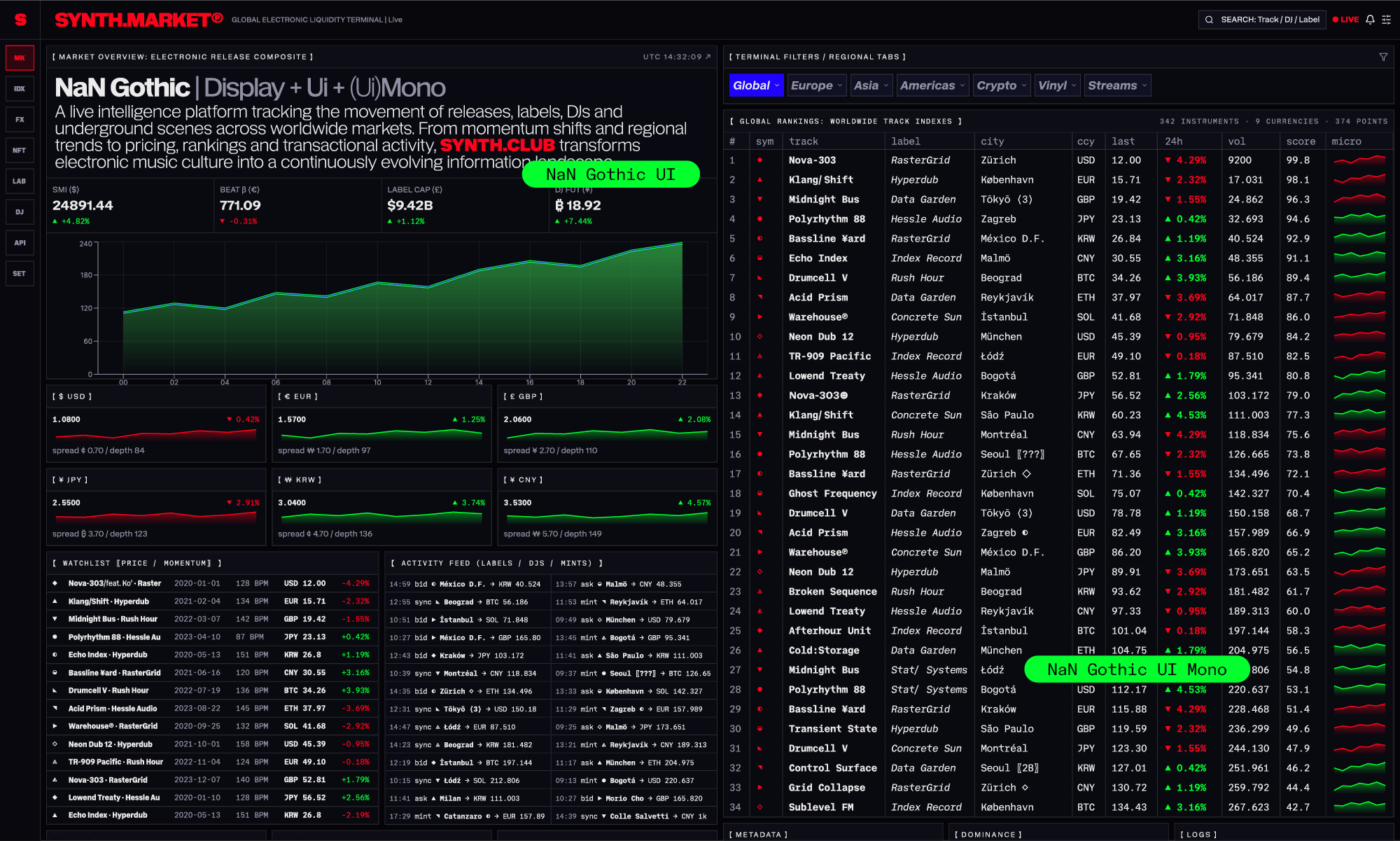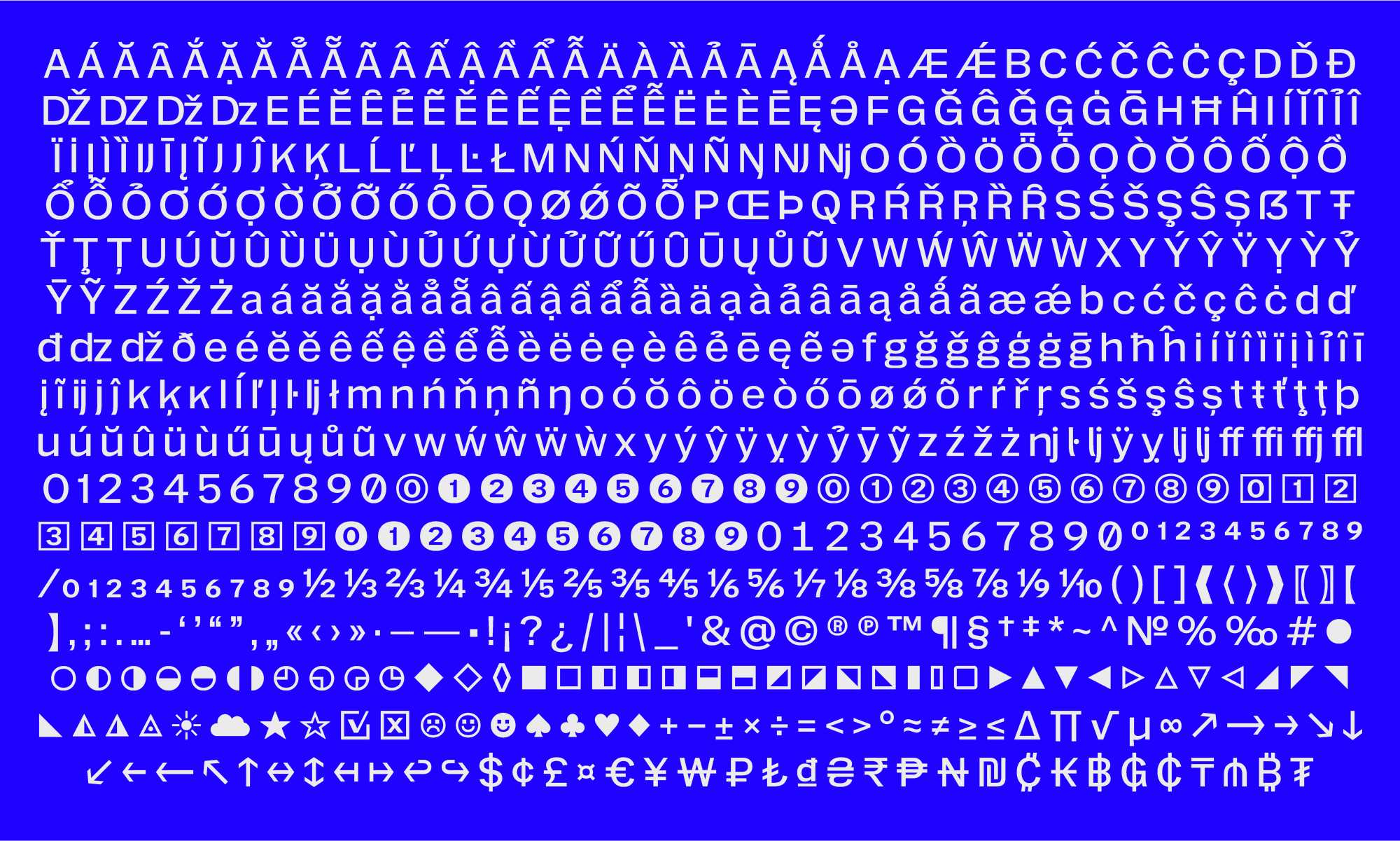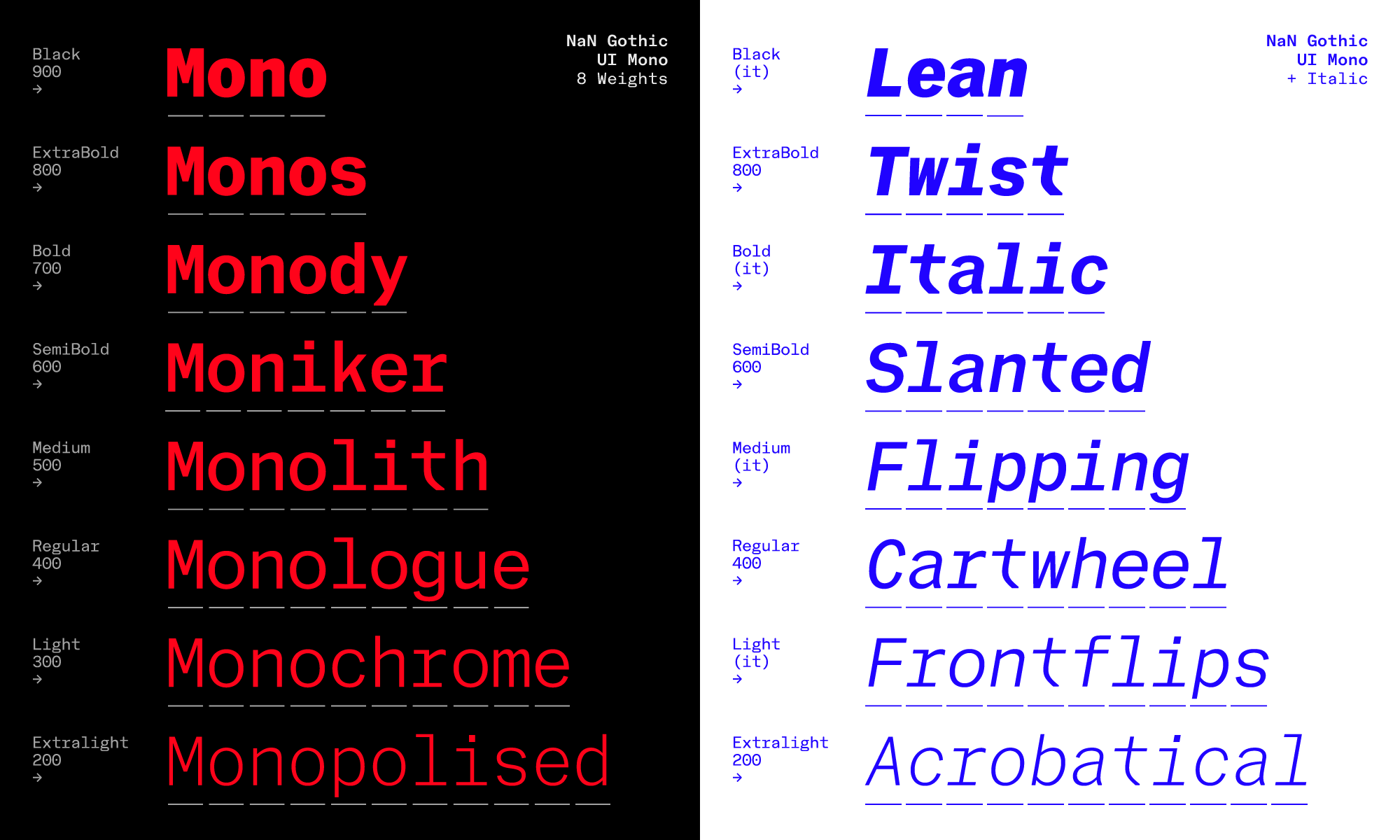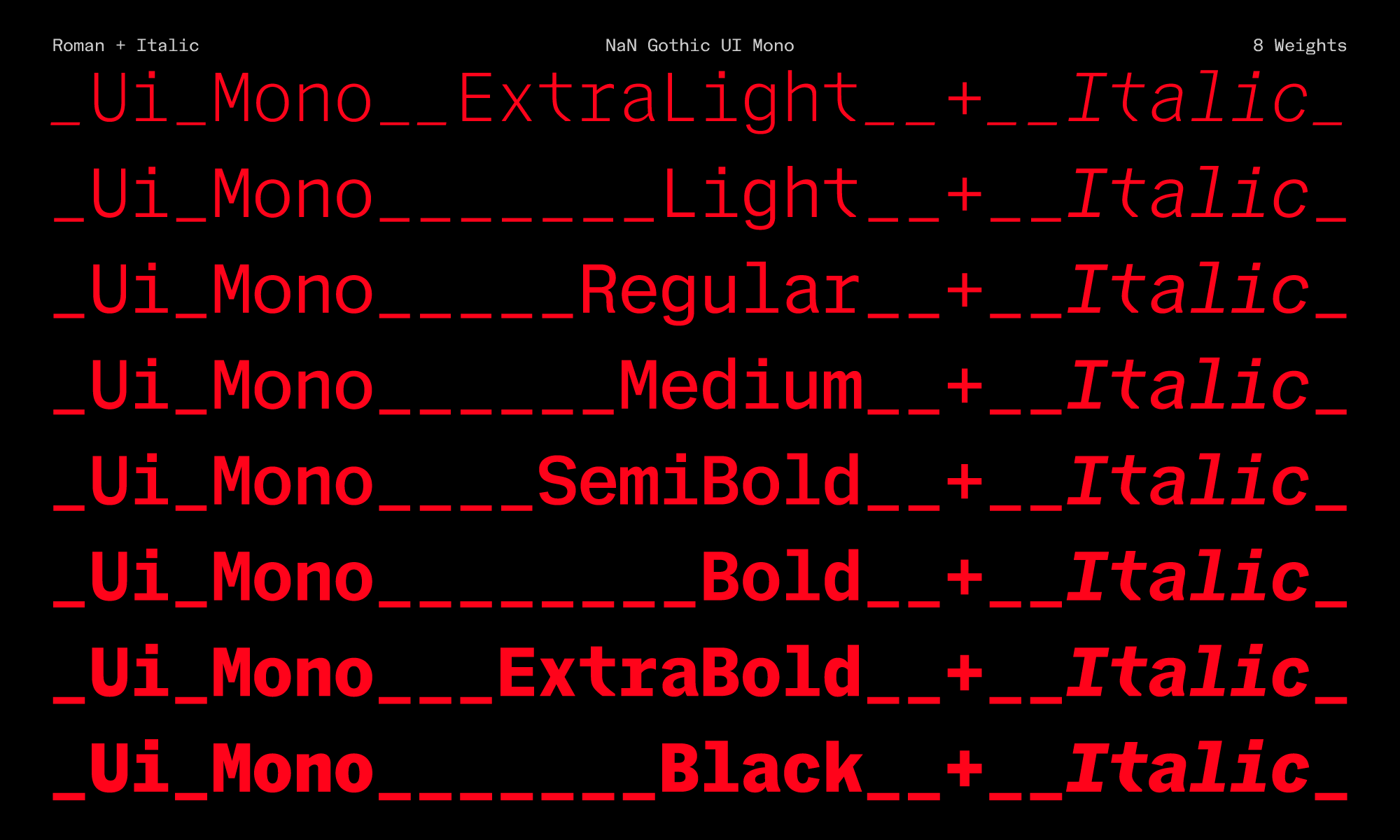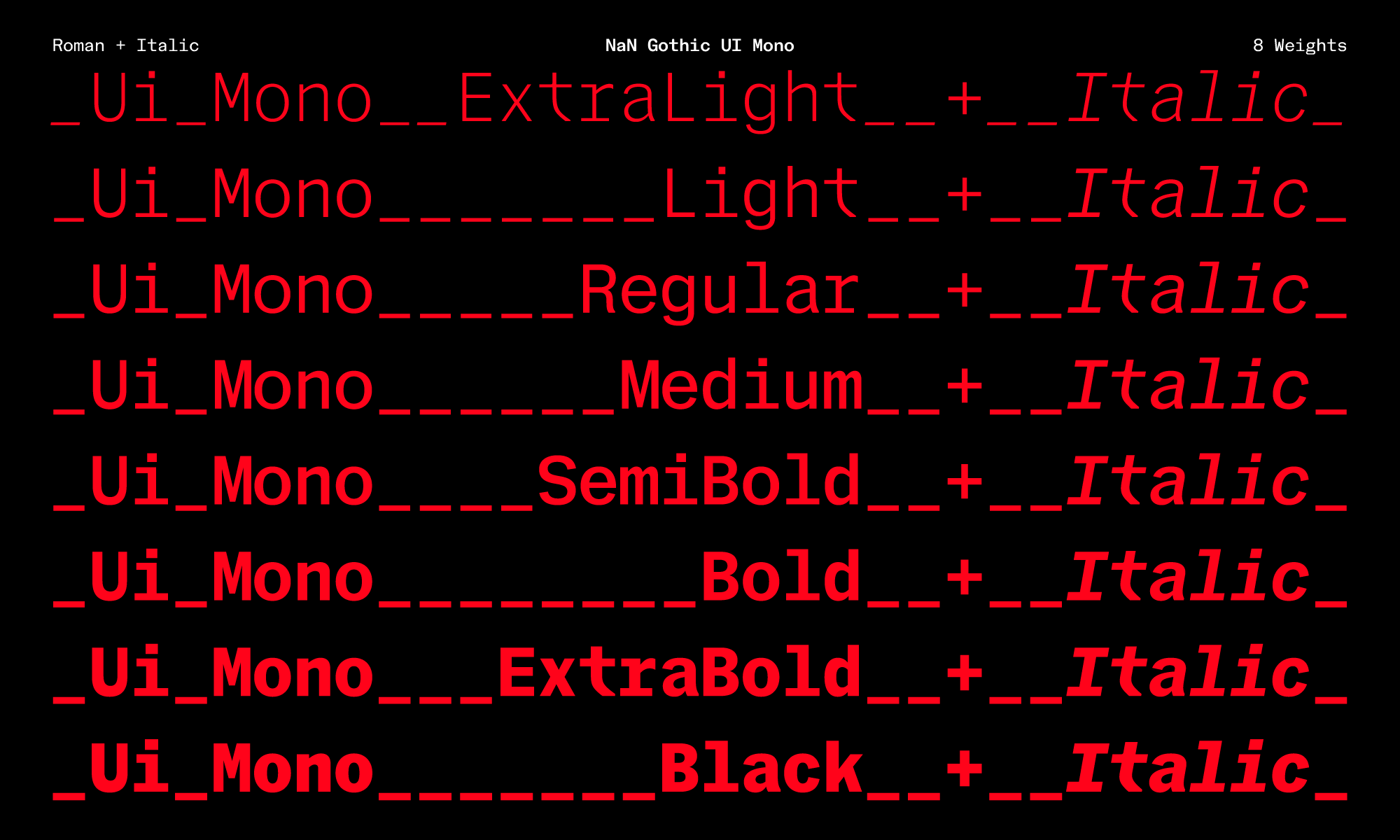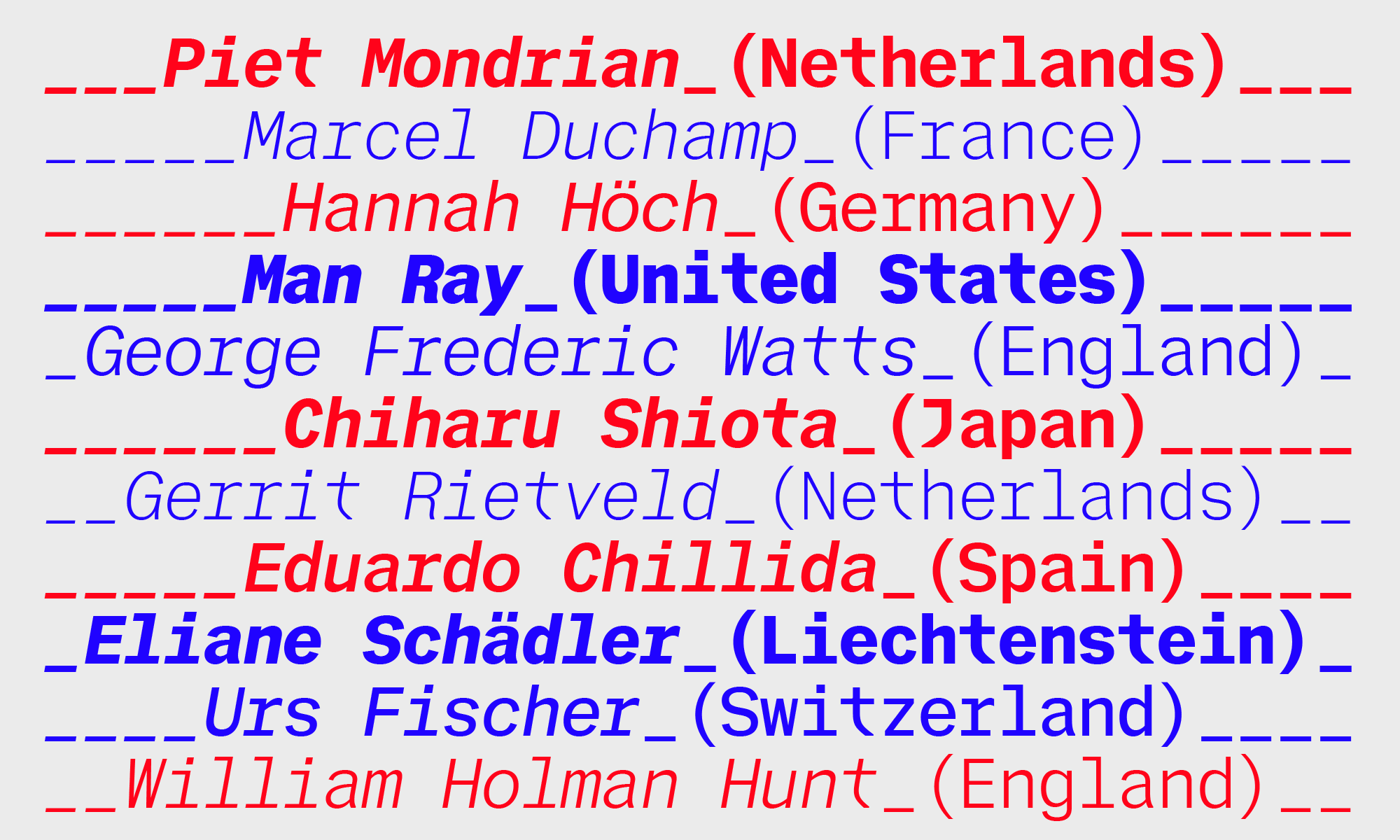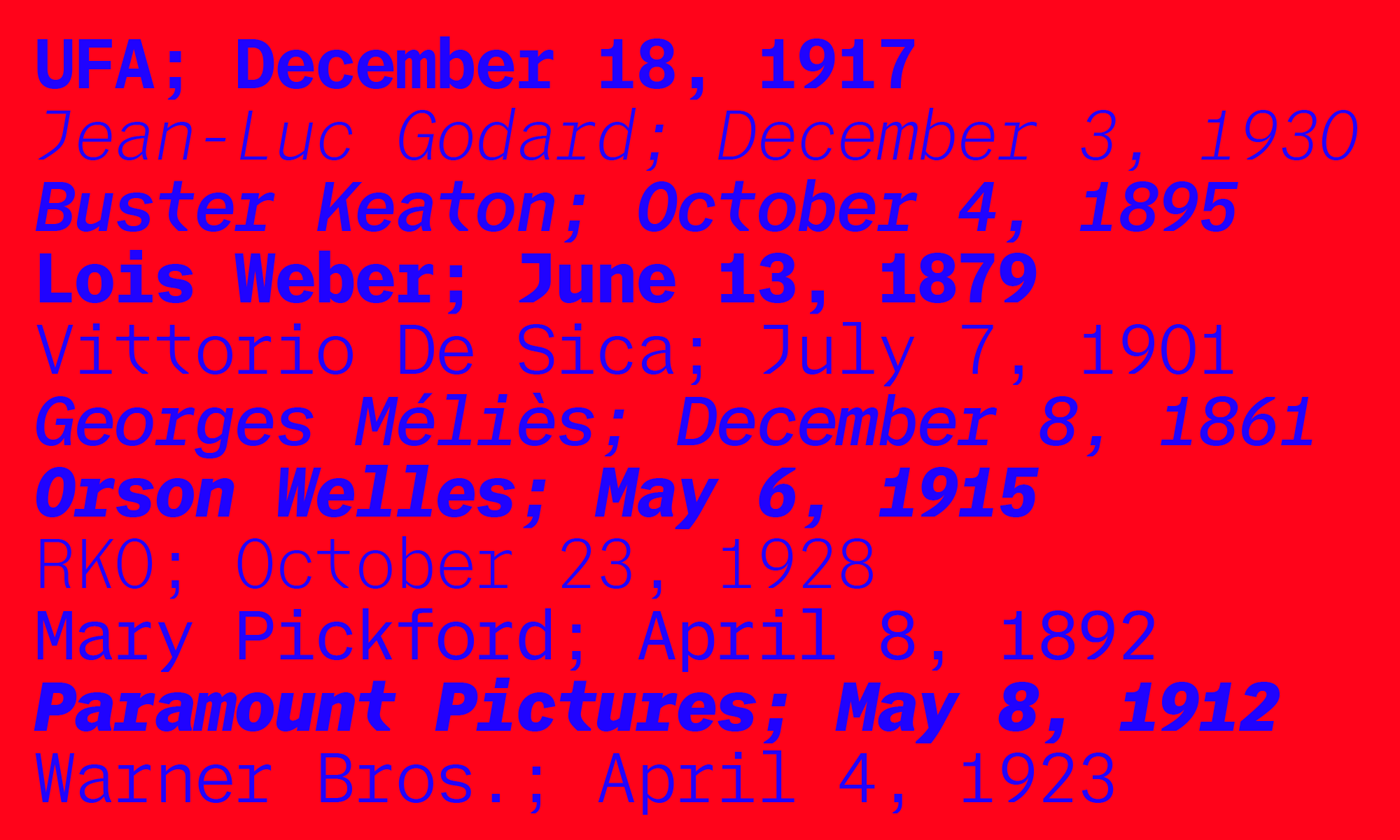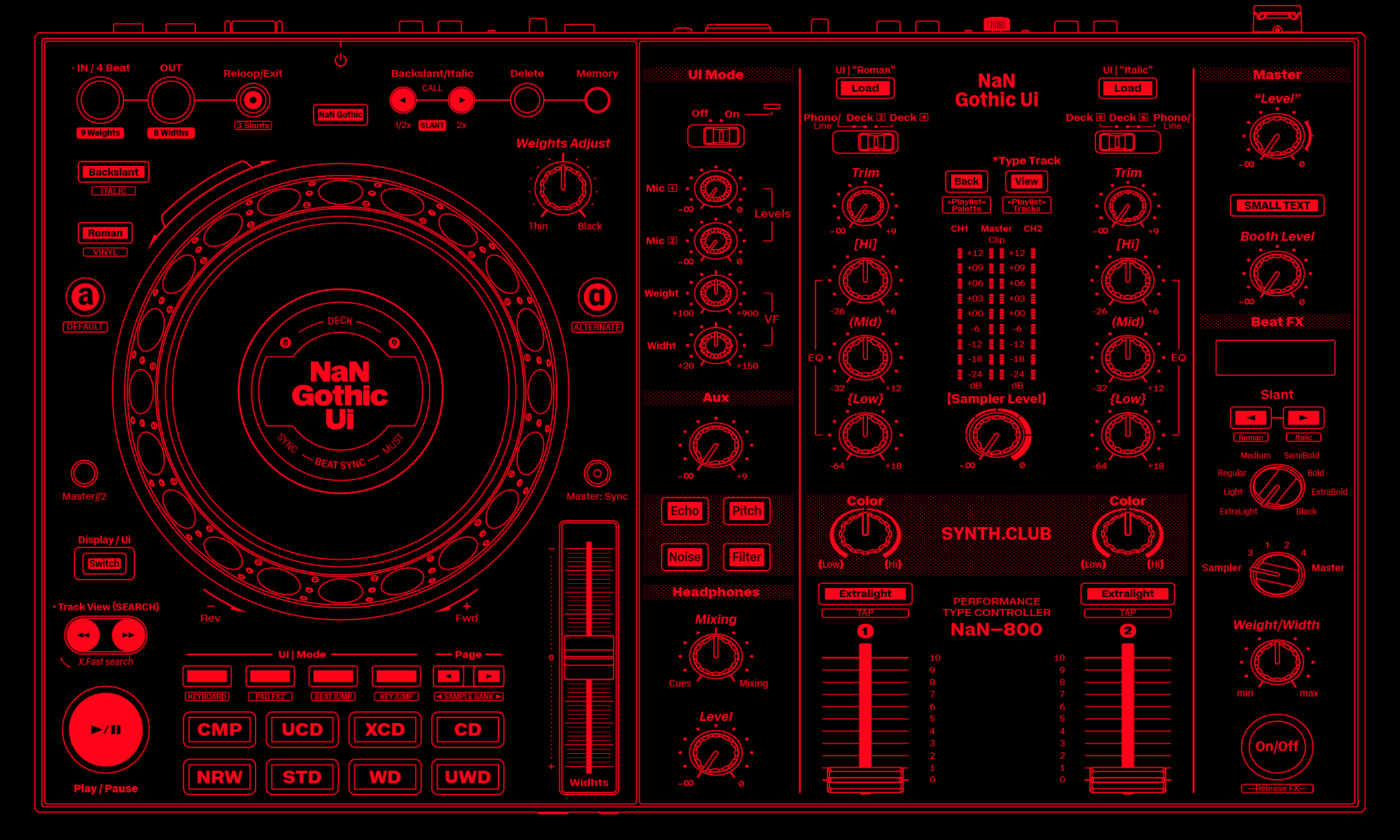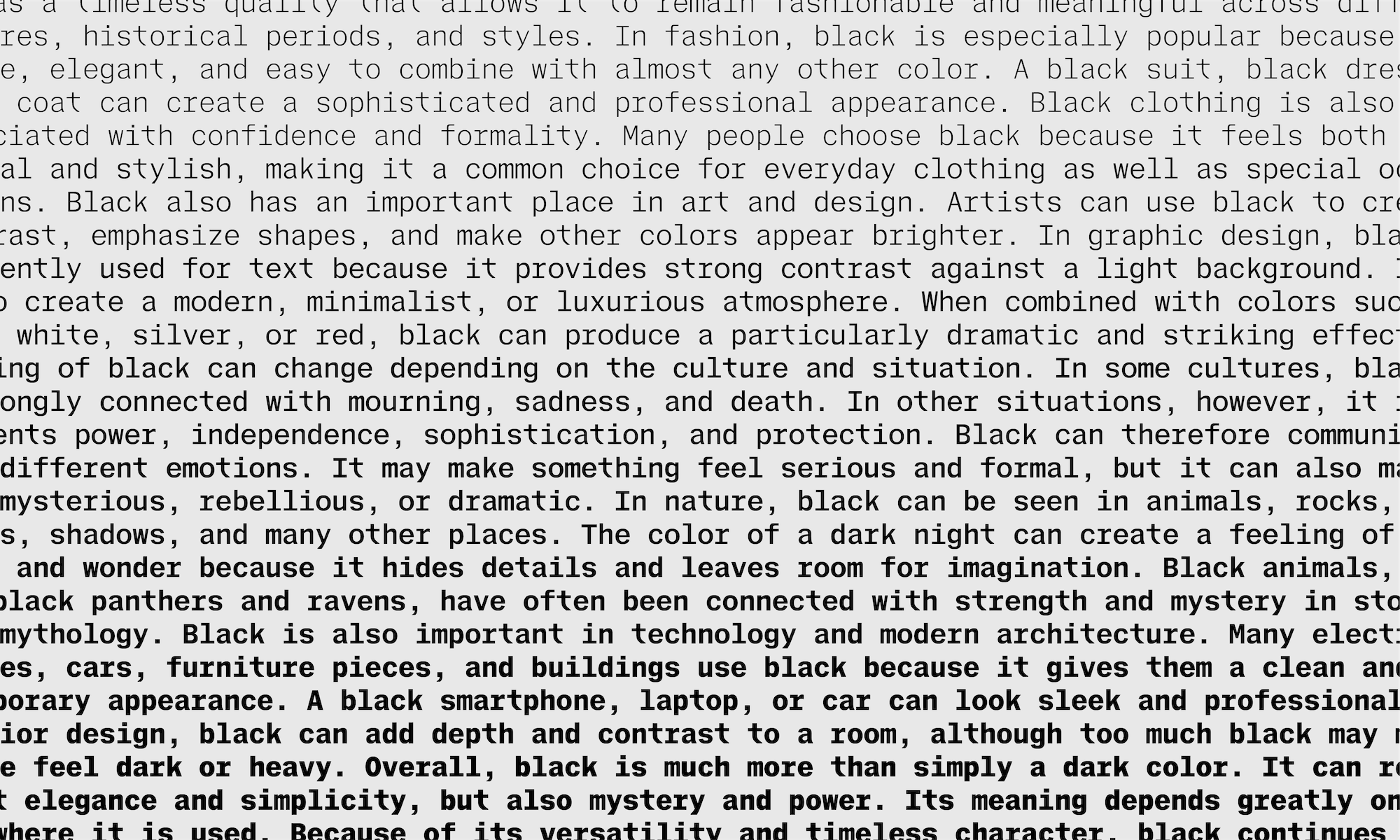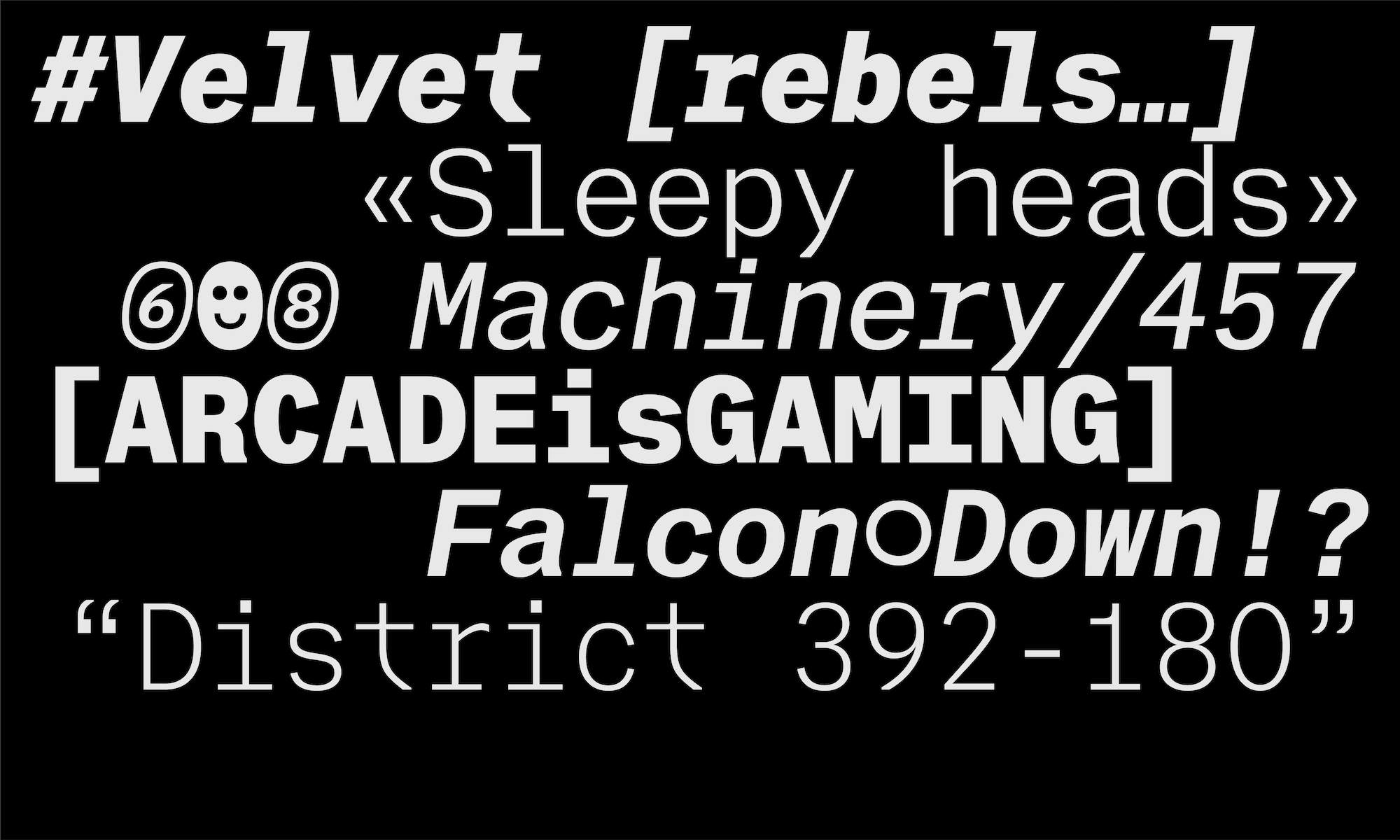
About NaN Gothic UI Mono
NaN Gothic is NaN’s rendition of the Sans Serif genre that were done and grew in popularity in the first half of the XXth century in the US of A. It embraces an almost vernacular approach, keeping all the warmth and the quirks but also the sturdiness that this everyday style carries. The results feels familiar, non pretentious, but very dynamic. This dynamism shows itself in many aspects: the sweeps in the letters /t and /y — echoing the tail of the /a — the 20° italic and backslant, the top-heavy /Ss and /Kk…
NaN Gothic is divided in 3 subfamilies: Big, UI and UI Mono. NaN Gothic Big, compact and impactful, is suited for larger text sizes, with its very tight spacing, big x-height. It sports 8 widths with 9 weights each, reaching extremes. It will shine in editorial contexts.
NaN Gothic UI keeps most of the identity but with looser spacing, smaller x-height and more open shapes. Tailored for setting long texts, it’s super legible and works incredibly well at tiny sizes. Its 3 widths allow to fine-tune how much space it occupies.